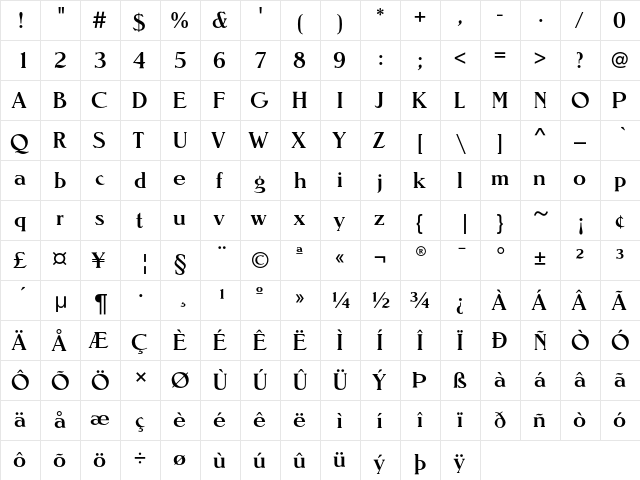
NevadaEF Medium
Design Context for NevadaEF Typeface
NevadaEF offers clean, dependable letterforms without strong stylistic allegiance, making it a practical choice for designers who need flexibility.
Pro Tip: Use NevadaEF in both headline and body roles to test its range before committing to a single application.